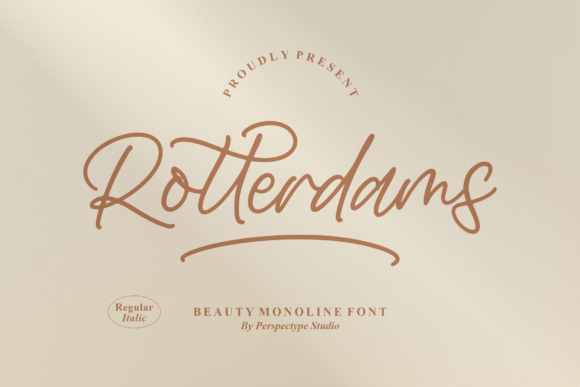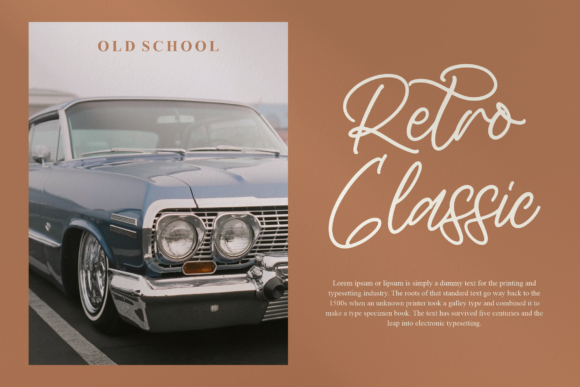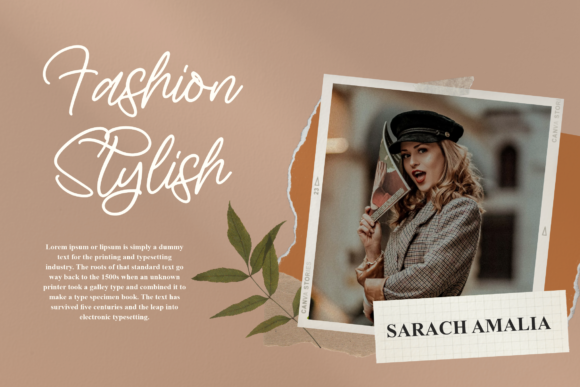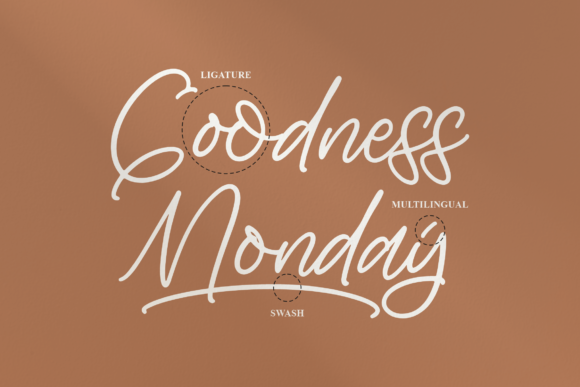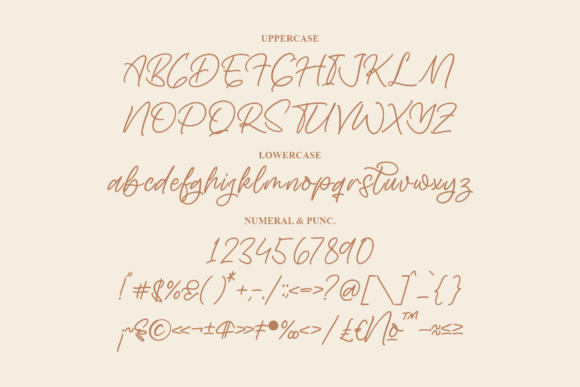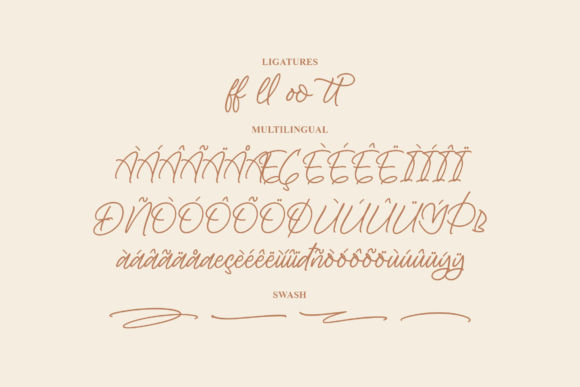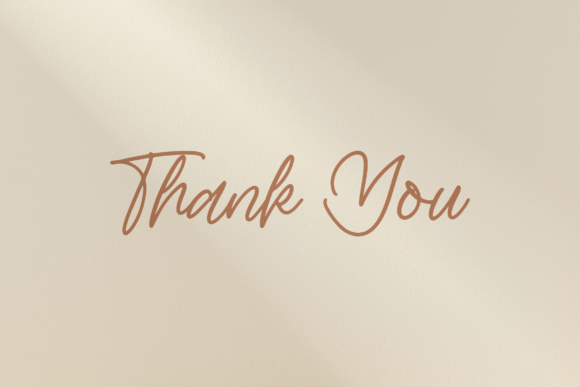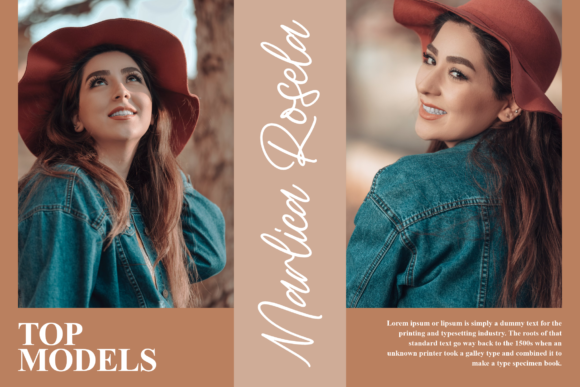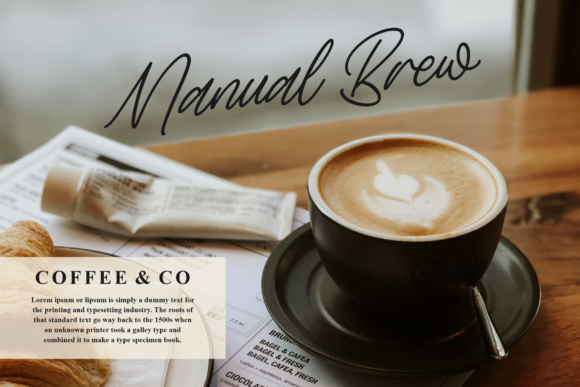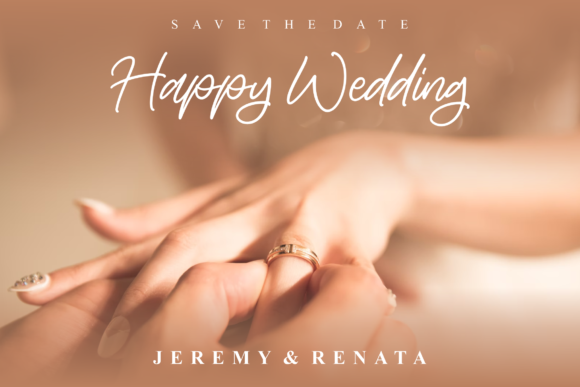
Rotterdams Font
About Rotterdams Font
Rotterdams is a luxurious and dainty script font. It is perfect for any branding project such as logos, t-shirt printing, creative products, and more. It will look extraordinary in a variety of contexts.